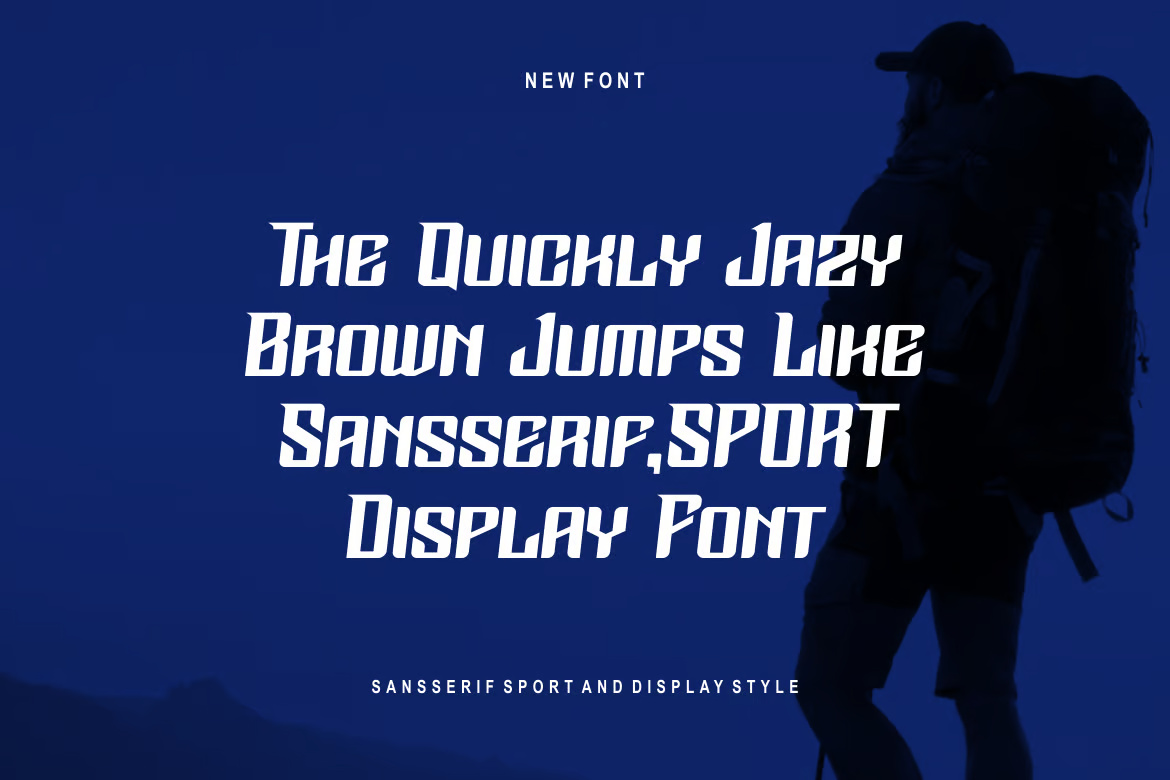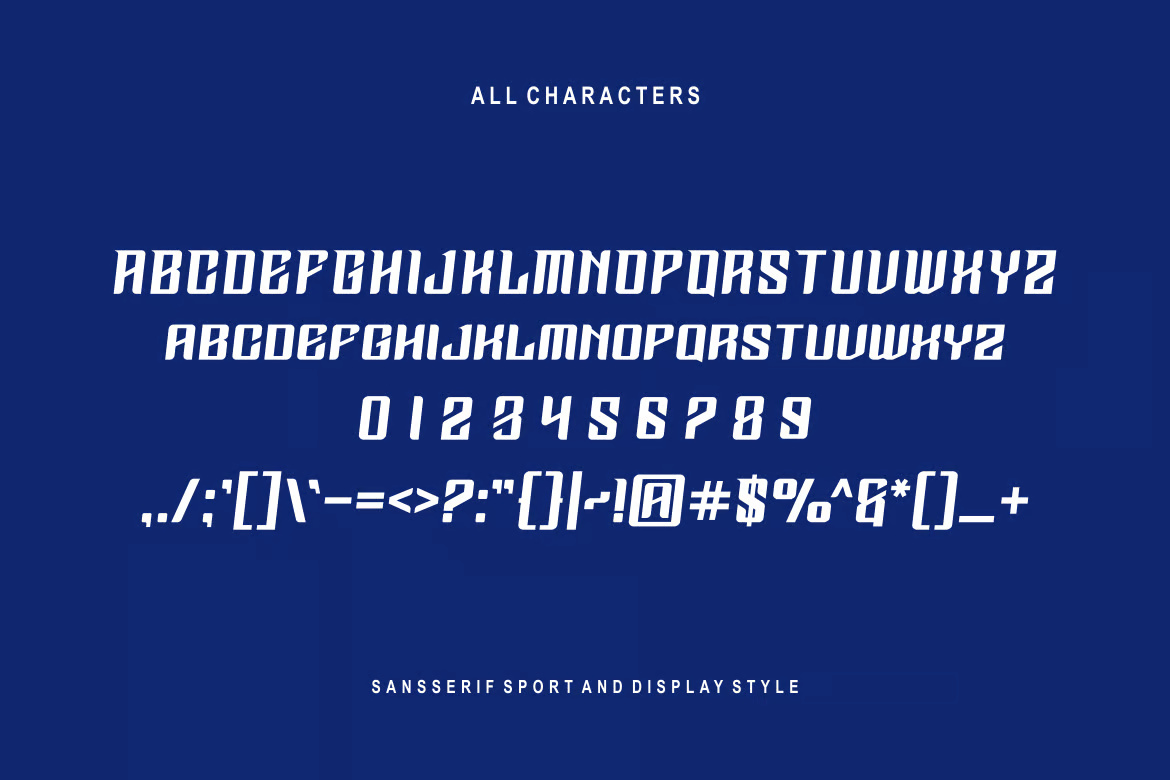
Tamfan Sport Display Font
Tamfan Font is a bold and authentic display font that embodies a modern, dynamic aesthetic. With its thick strokes and distinctive style, it makes a powerful statement in any design. Perfect for branding projects, logos, t-shirt prints, esports graphics, and more, this font stands out across a wide range of applications. Its unique character and bold presence ensure that it grabs attention, whether on digital screens or in print.
Tamfan Sport Display Sans-Serif Font